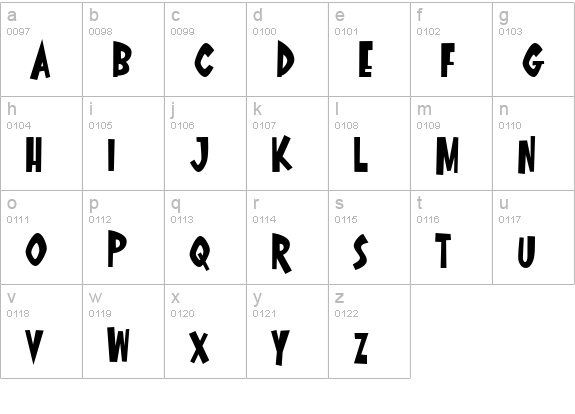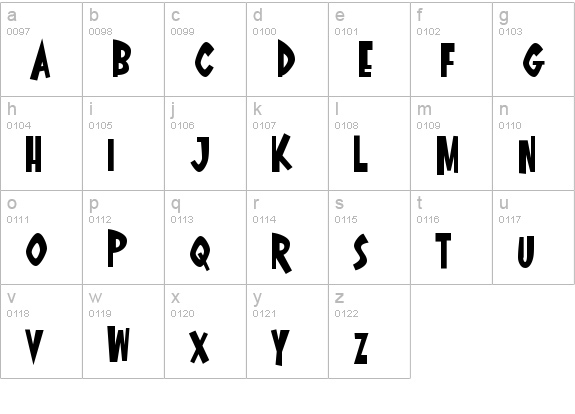
Oyster Bar BTN Bold is a strong, high-contrast variant in the Oyster typeface family \xE2\x80\x94 well suited to headlines, attention-grabbing titles, and strong calls-to-action.
Introducing Oyster Bar BTN Bold font - a sleek and sophisticated typeface that exudes confidence and modernity. With its bold and striking design, this font is perfect for making a statement in any project. Whether you're working on a branding campaign, poster design, or web layout, Oyster Bar BTN Bold will surely catch the eye and leave a lasting impression. And the best part? Oyster Bar BTN Bold font is available for free download at FontsMarket.com. That's right, you can elevate your designs with this stunning font without breaking the bank. So why wait? Download Oyster Bar BTN Bold today and add a touch of elegance to your creative endeavors.